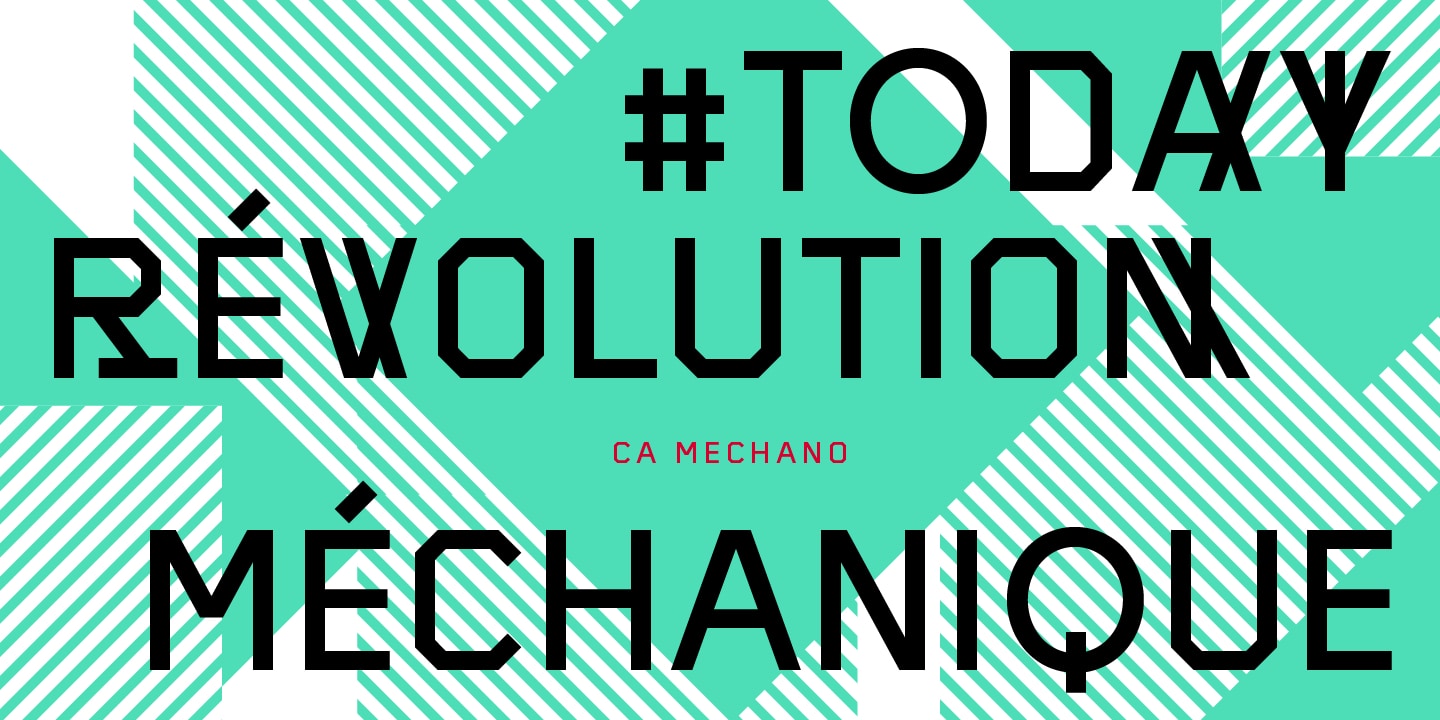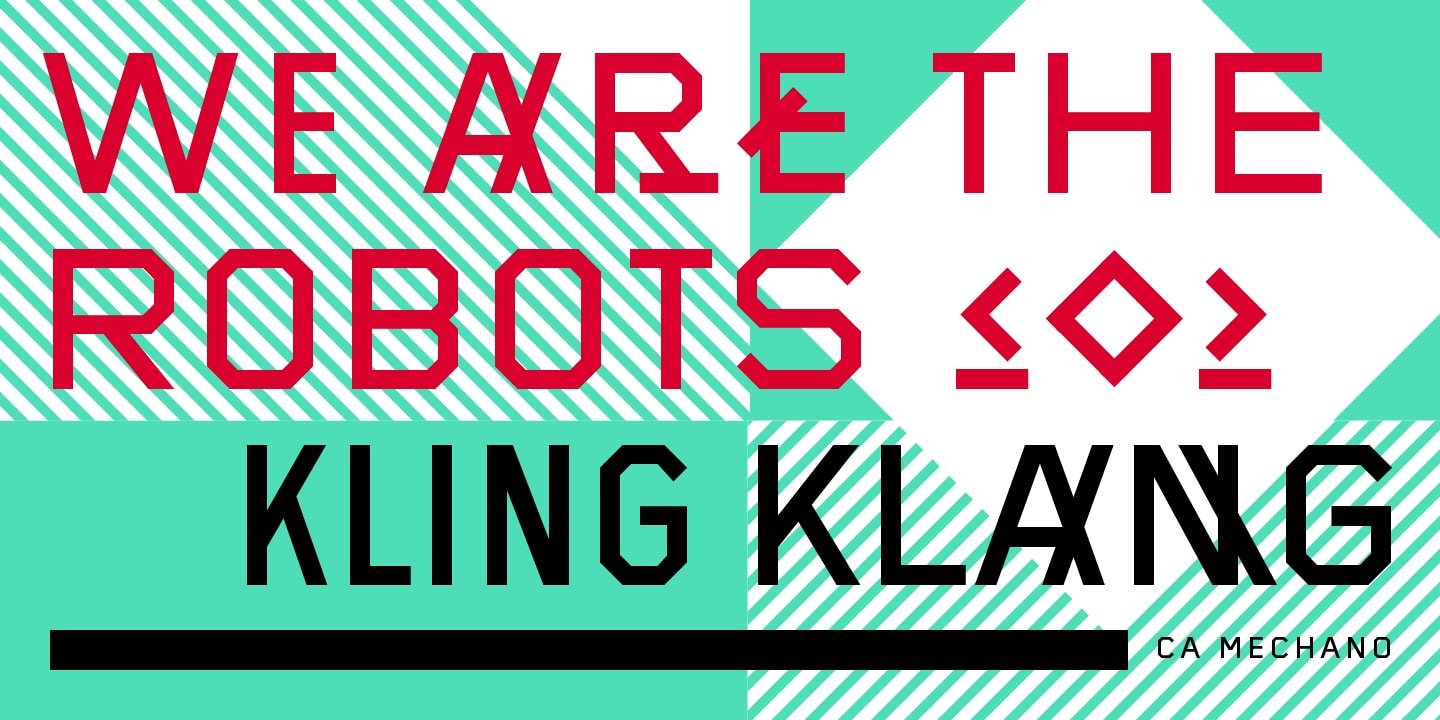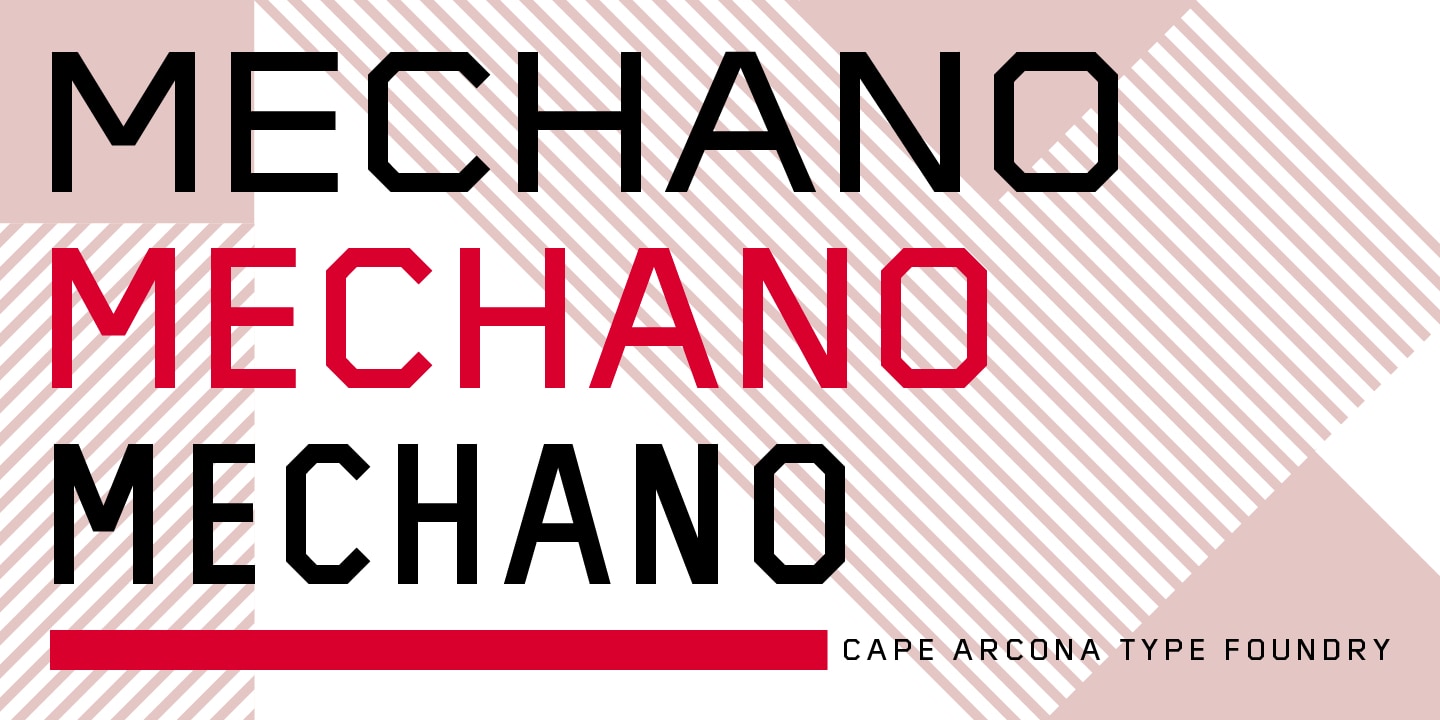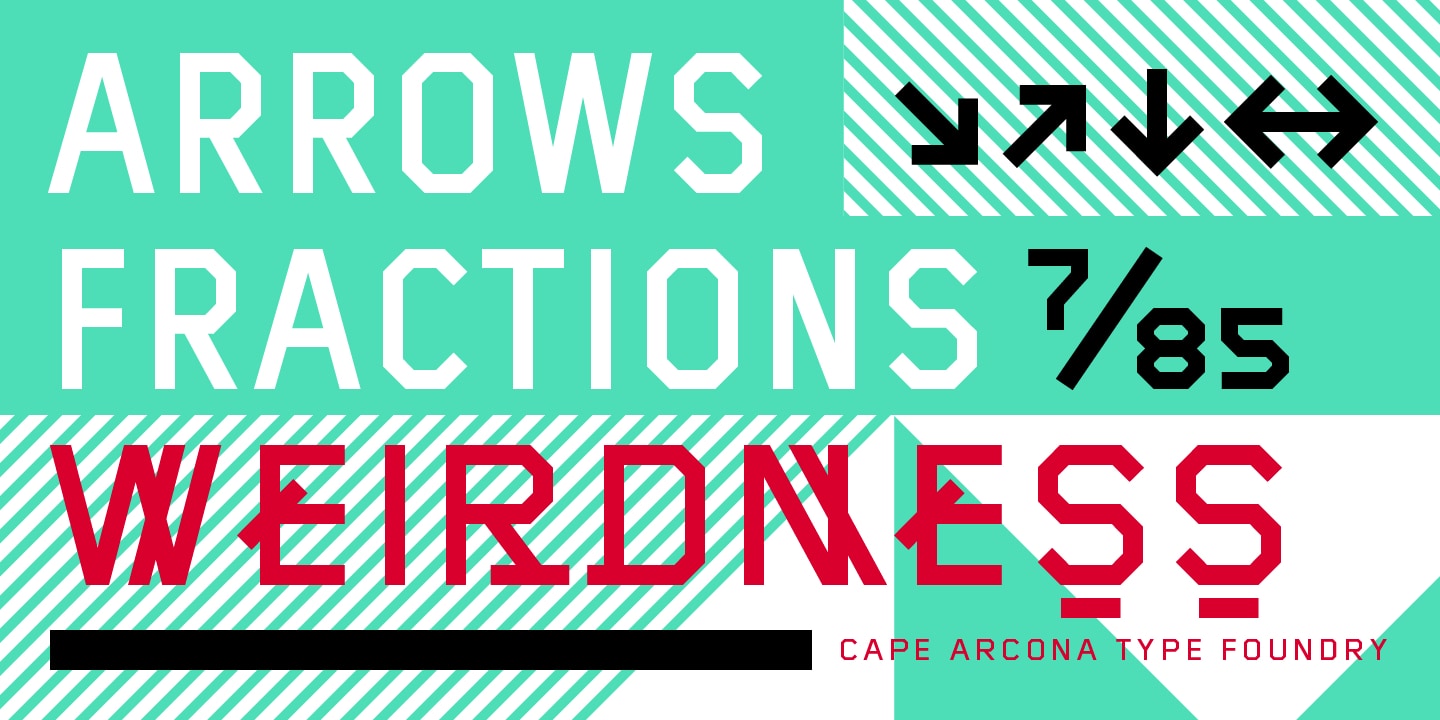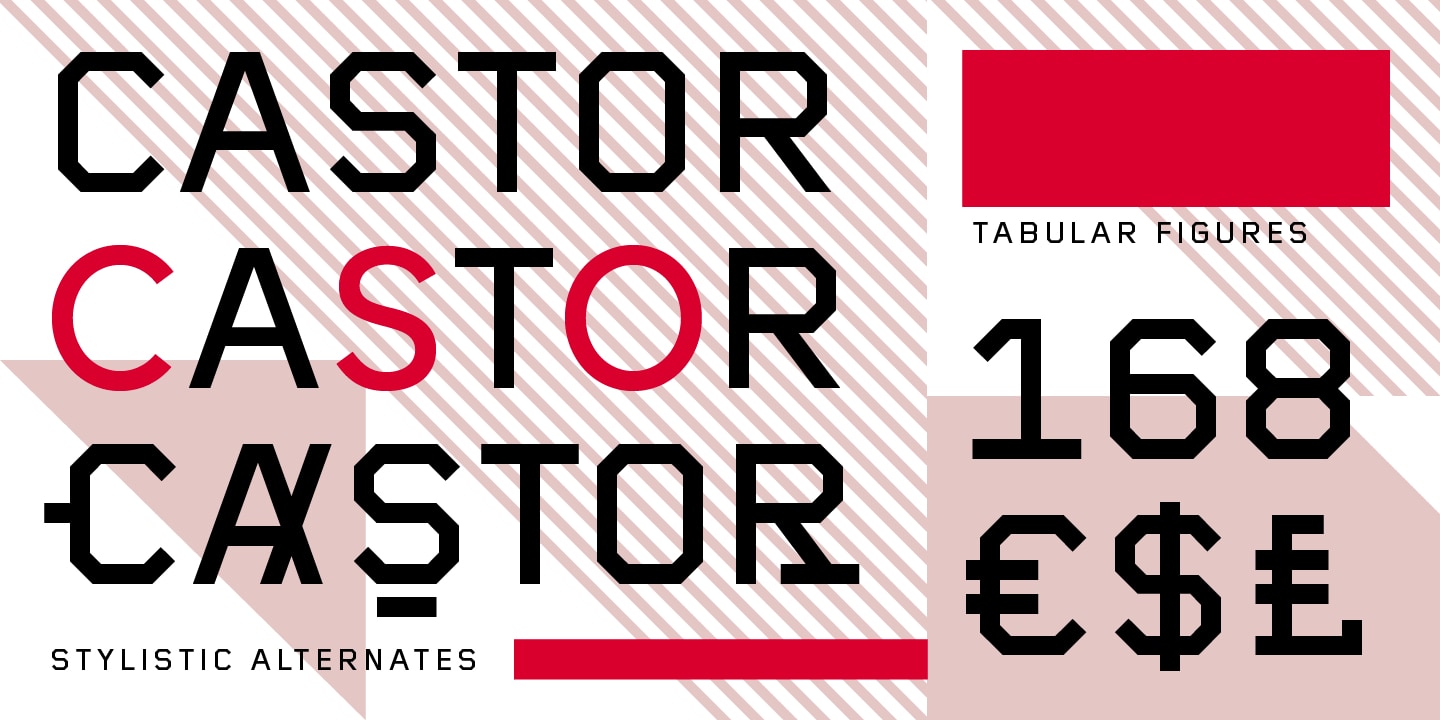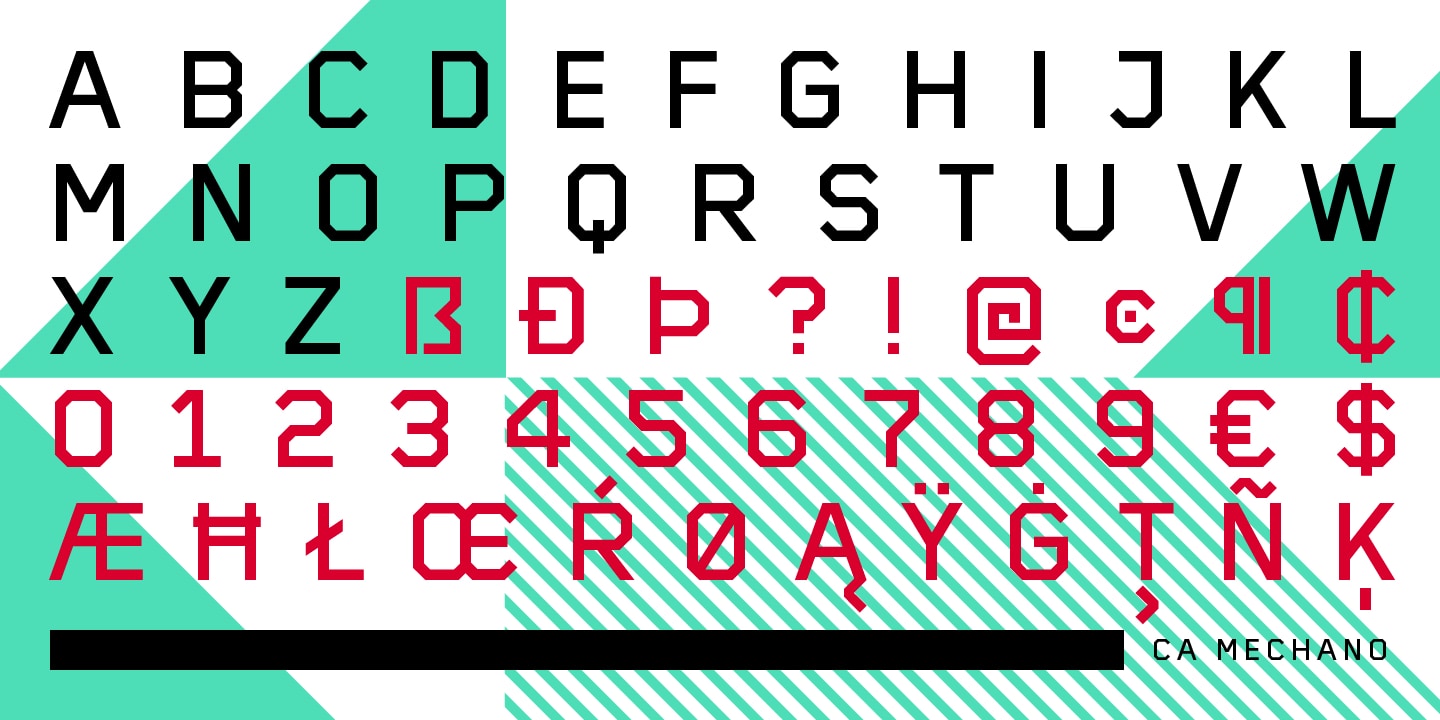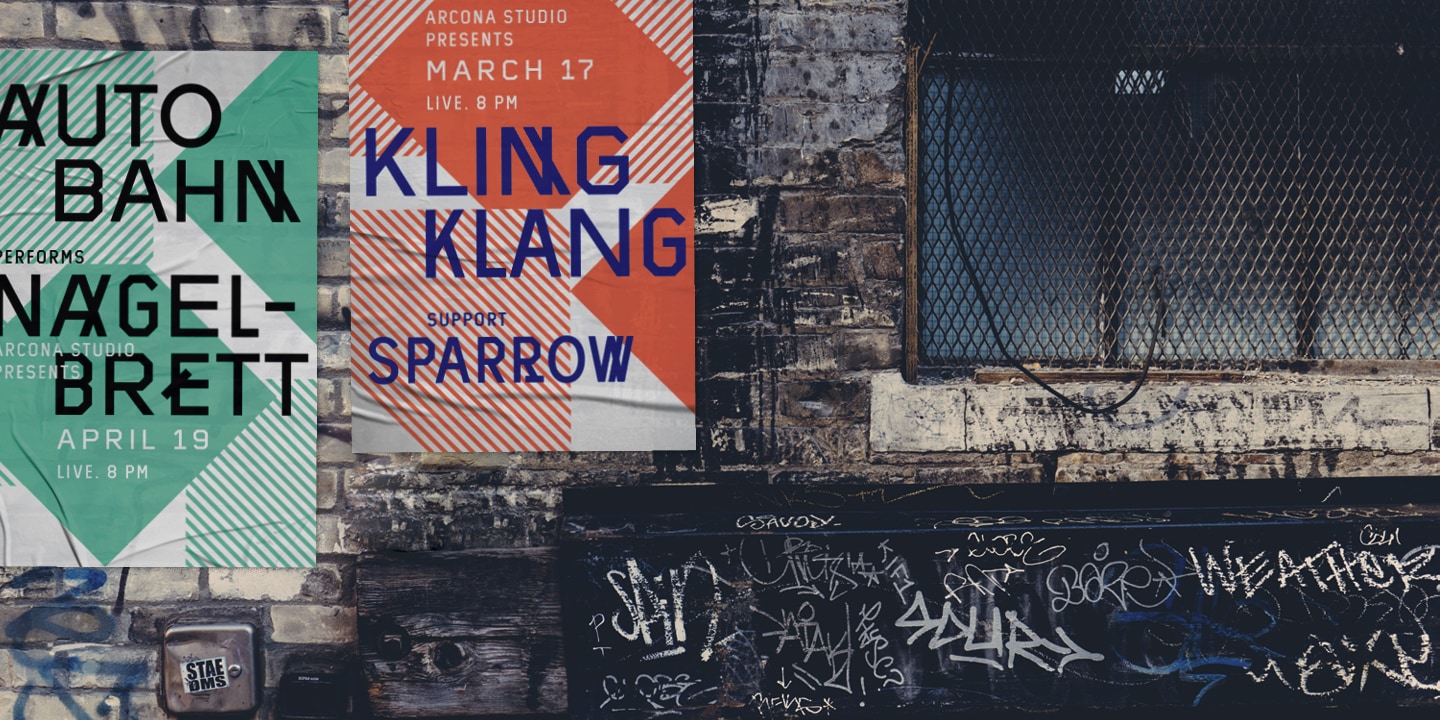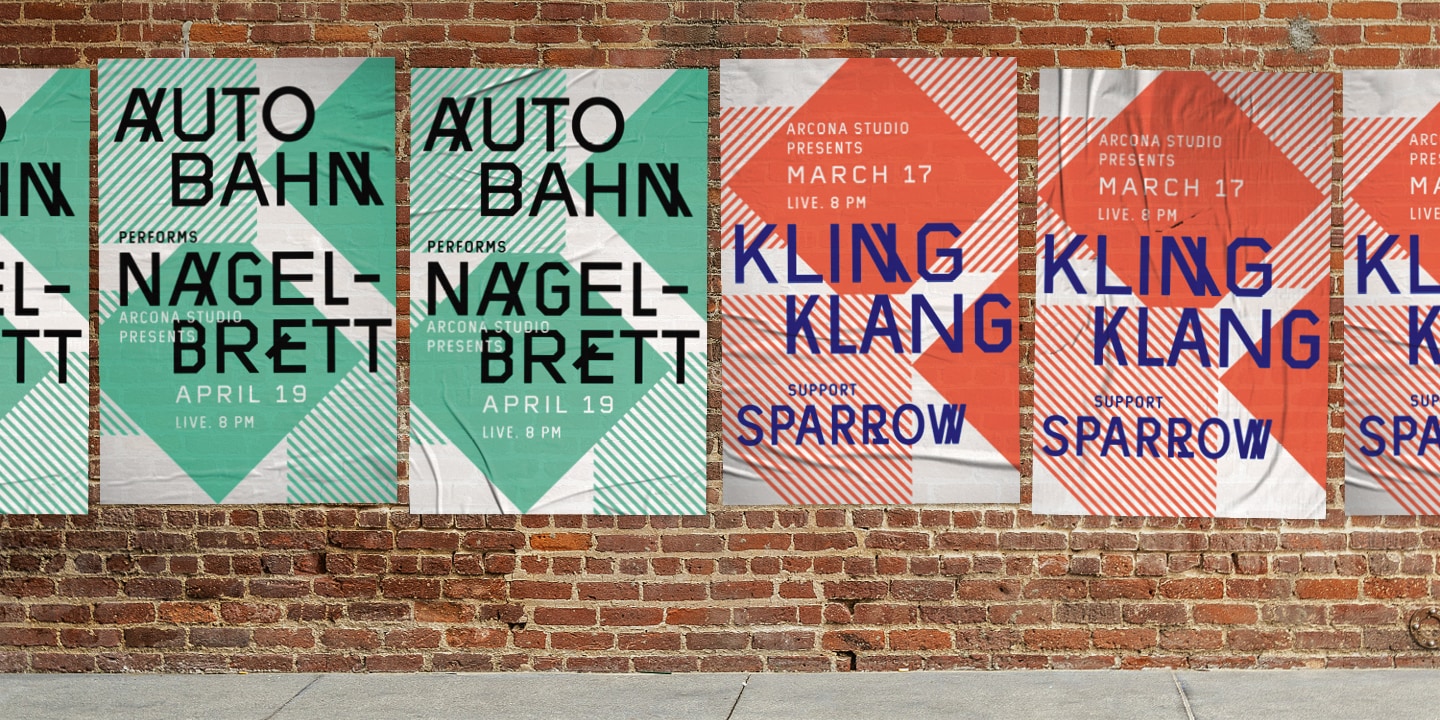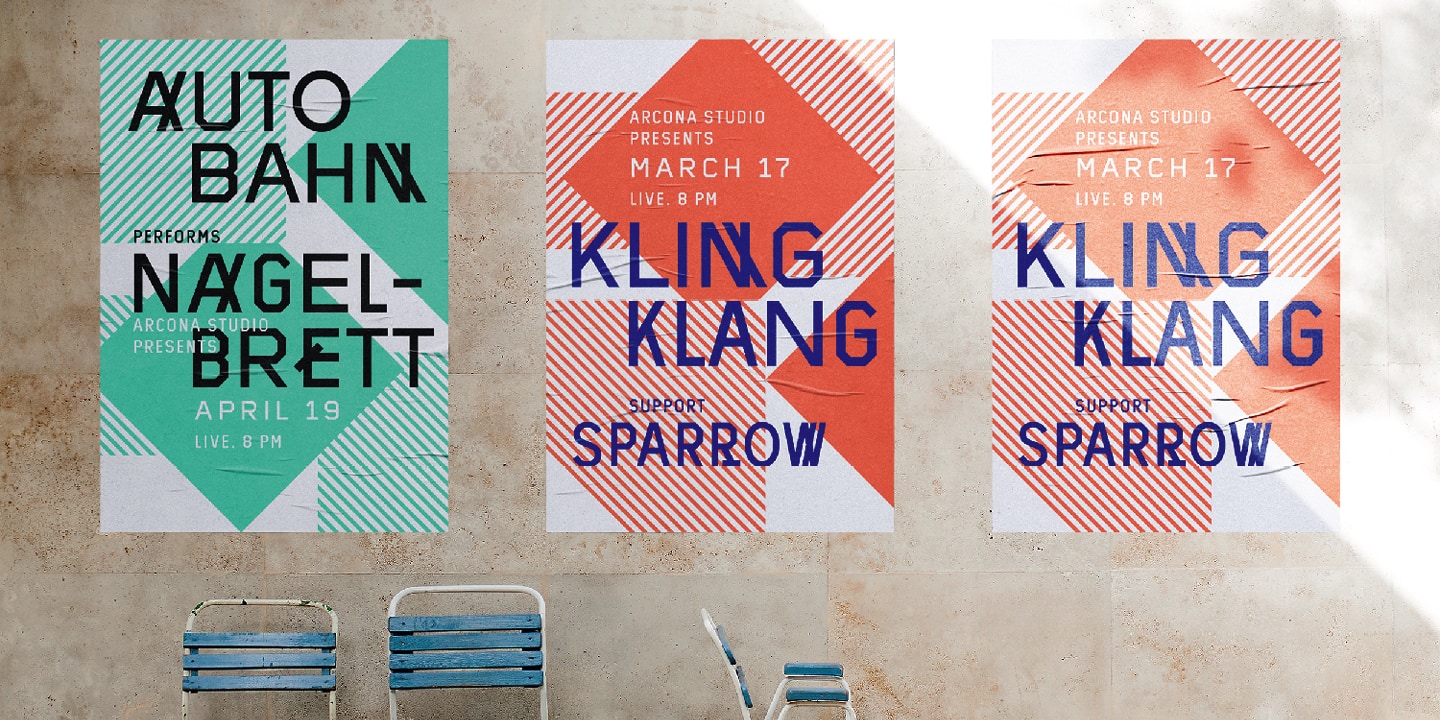
CA Mechano does exactly what it says on the tin: it's a mechanical typeface, all caps, and dead simple to use – unless you flip on the “disorder” stylistic set. Do that and things get weird fast, in a good way for anyone who likes playing with type. The other stylistic set is the calmer option, swapping in rounded letters that sit comfortably next to the more rigid, mechanical glyphs.
The family ships in three styles – Regular, Condensed, and Wide – all built on the same mechanical skeleton. That gives you room to go tighter or wider depending on the job, which makes it a solid pick for headlines, signage, or branding where you need one consistent look across different sizes and proportions.
Vive la révolution mécanique!